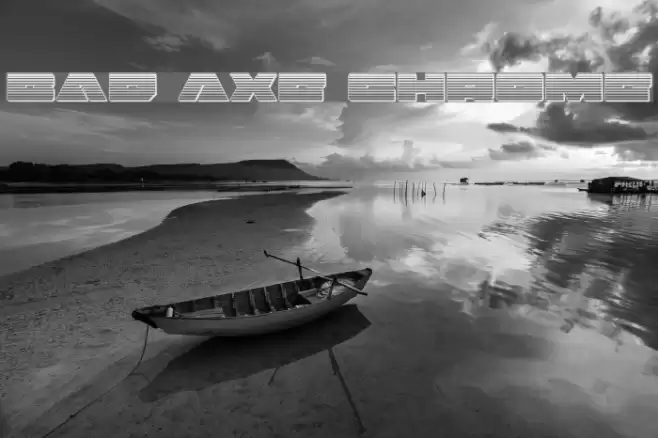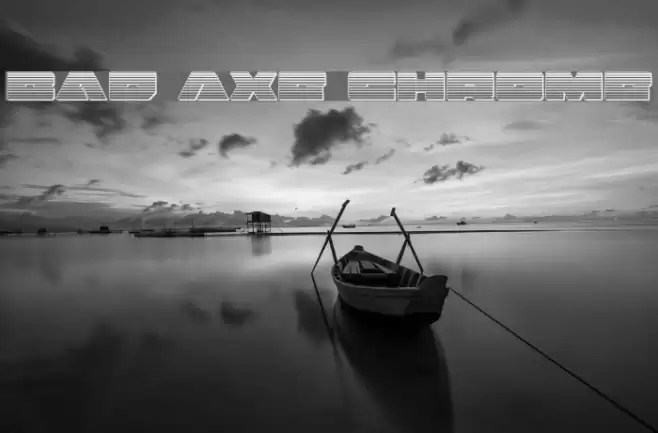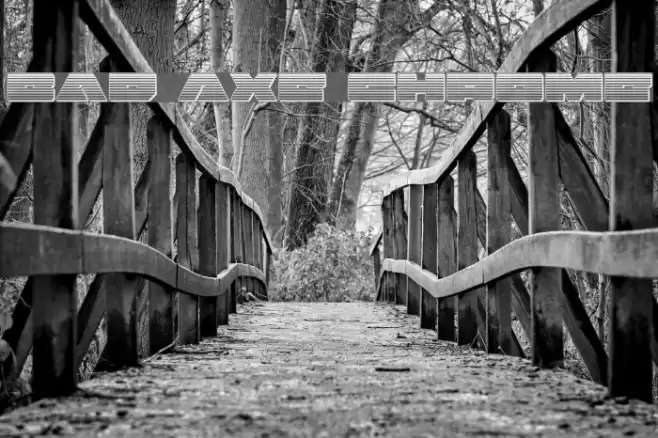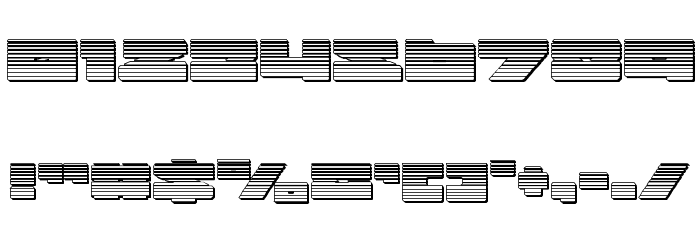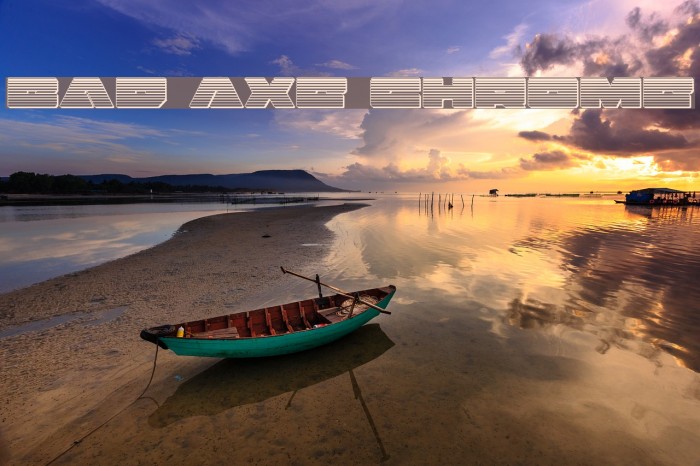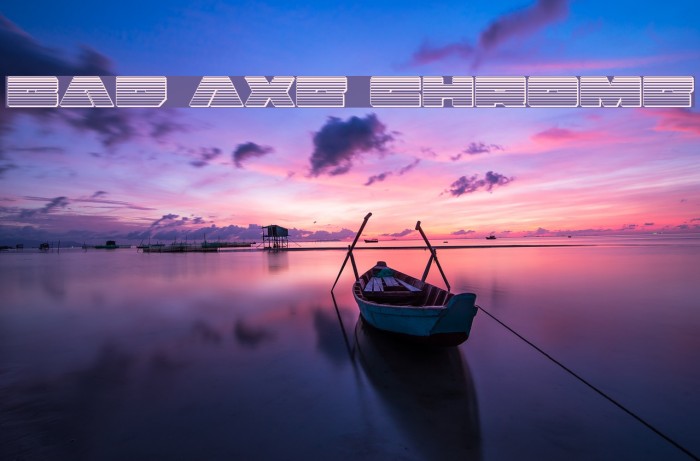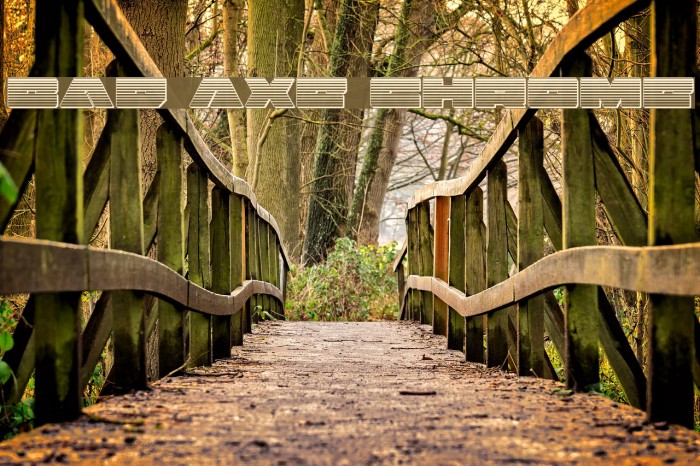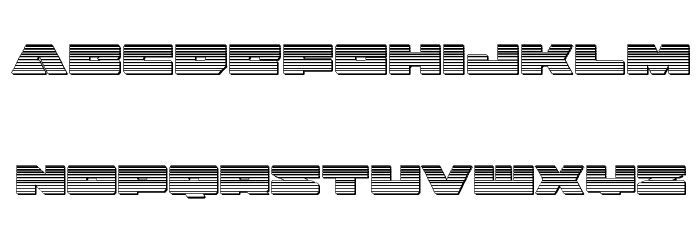
Bad Axe Chrome Font
Bad Axe Chrome Description
This font features a bold, futuristic design with a distinct chrome-like appearance. The characters are constructed with multiple horizontal lines, creating a layered effect that adds depth and dimension. The uppercase letters are uniform in height, while the lowercase letters maintain a consistent style, offering a cohesive look across the alphabet. Numbers and special characters follow the same design principles, ensuring versatility in various applications. The font's unique style makes it ideal for projects that require a modern, tech-inspired aesthetic.
A bold, futuristic font with a chrome-like, layered design from Sci-fi fonts.
- Proposed Projects: Ideal for tech branding, video game titles, sci-fi movie posters, and futuristic-themed designs.
- Overall Style: Futuristic